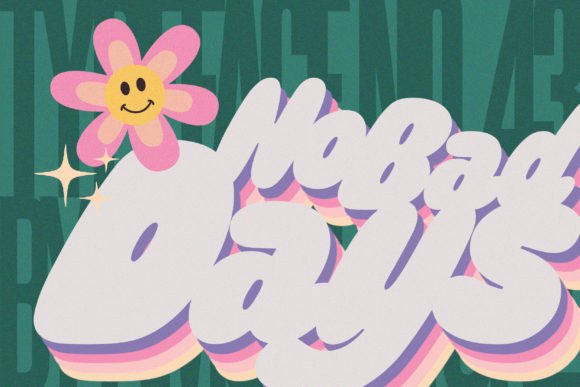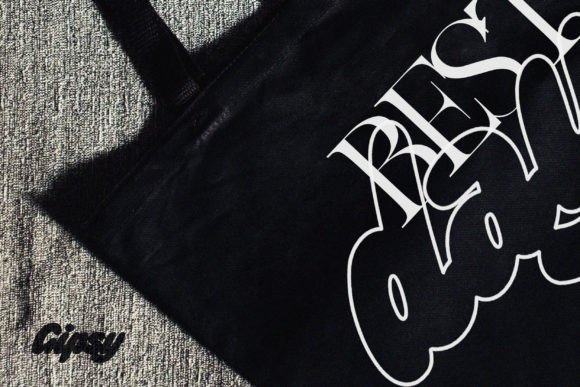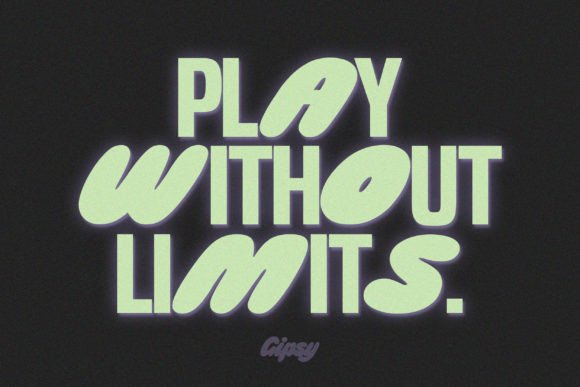
The Perfect Blend of Boho Chic and Retro Flair: Gipsy Font
Have you ever found yourself stuck in a creative rut, searching for the perfect font to elevate your design from ordinary to extraordinary? It’s a moment we’ve all been there, scrolling through font libraries, and nothing seems to capture the essence of our vision. But what if I told you that there’s a font that embodies the perfect blend of bohemian charm and retro flair – the Gipsy Font.
Designed to make a statement, the Gipsy Font is a bold and eye-catching display font that’s perfect for any project that needs a dash of personality. From boho designs and stickers to logos and branding, this font is the ultimate go-to for designers looking to add a unique touch to their work.
Gipsy Font Key Features
- Unique Characteristics: Gipsy Font features a distinctive, cursive script with a mix of rounded and pointed shapes, giving it a unique and elegant appearance.
Gipsy Font Review
Overall, I think the Gipsy font has a unique charm to it ✨. The script-like appearance and varied line widths give it a personal, handwritten feel that’s perfect for creative projects or titles. The font’s ligatures and swashes also add to its character, making it a great choice for designers looking to add some flair to their designs.
However, there are a few limitations to consider ⚠️. For one, the font’s readability can suffer at smaller font sizes, making it less suitable for body text. Additionally, the font’s complexity can make it challenging to pair with other fonts, which may limit its versatility in certain designs.
Another potential issue is the font’s inconsistent spacing, which can affect the overall alignment and balance of your design. This may require some extra attention and tweaking to get right.
- Unique, script-like appearance ✨
- Variety of line widths and styles
- Ligatures and swashes for added character
- Challenging to pair with other fonts ⚠️
- Inconsistent spacing
Recommendation:
The Gipsy font is a great choice for designers looking to add some personality and flair to their titles, headings, or creative projects. However, it may not be the best option for body text or designs where readability is a top priority.
The Gipsy Font is ideal for creative and artistic projects, such as: